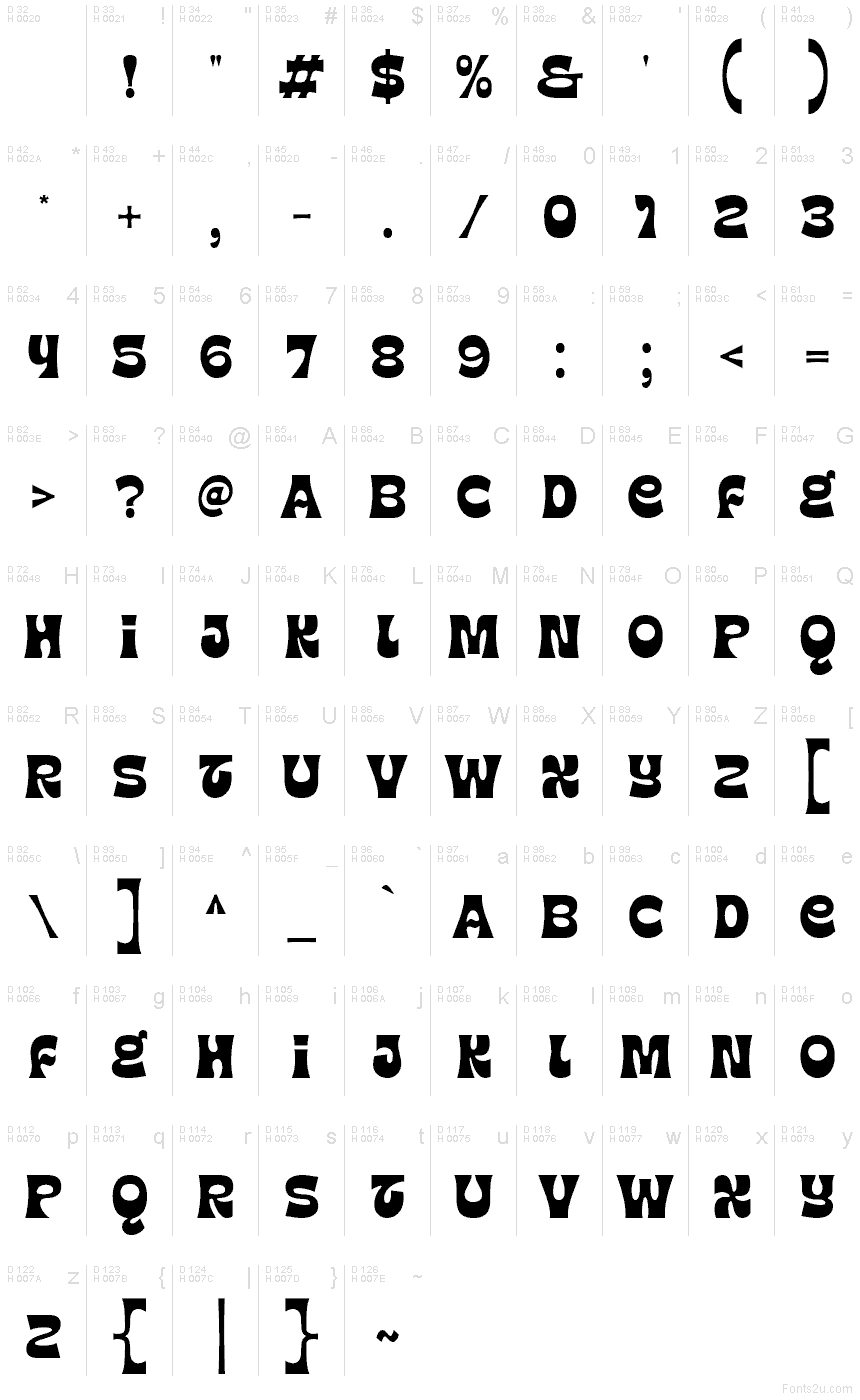
Stero Mont
Stero Mont font by HansCo is a free bold groovy font that sways with a lava-lamp rhythm. Thick, inky strokes bulge and taper like poured vinyl, while soft, wavy counters keep the texture playful rather than messy. It’s the rare face that feels both retro and fresh—chunky, rhythmic, and unmistakably hand-tuned.
Using Stero Mont, headlines hit with one-shot impact on music posters, festival branding, album covers, retro packaging, coffee shop signage, and social media titles. The generous curves hold up at huge sizes and still read cleanly in short phrases. Pair this free font with a simple geometric sans for body text, or slightly increase tracking to let the grooves breathe.